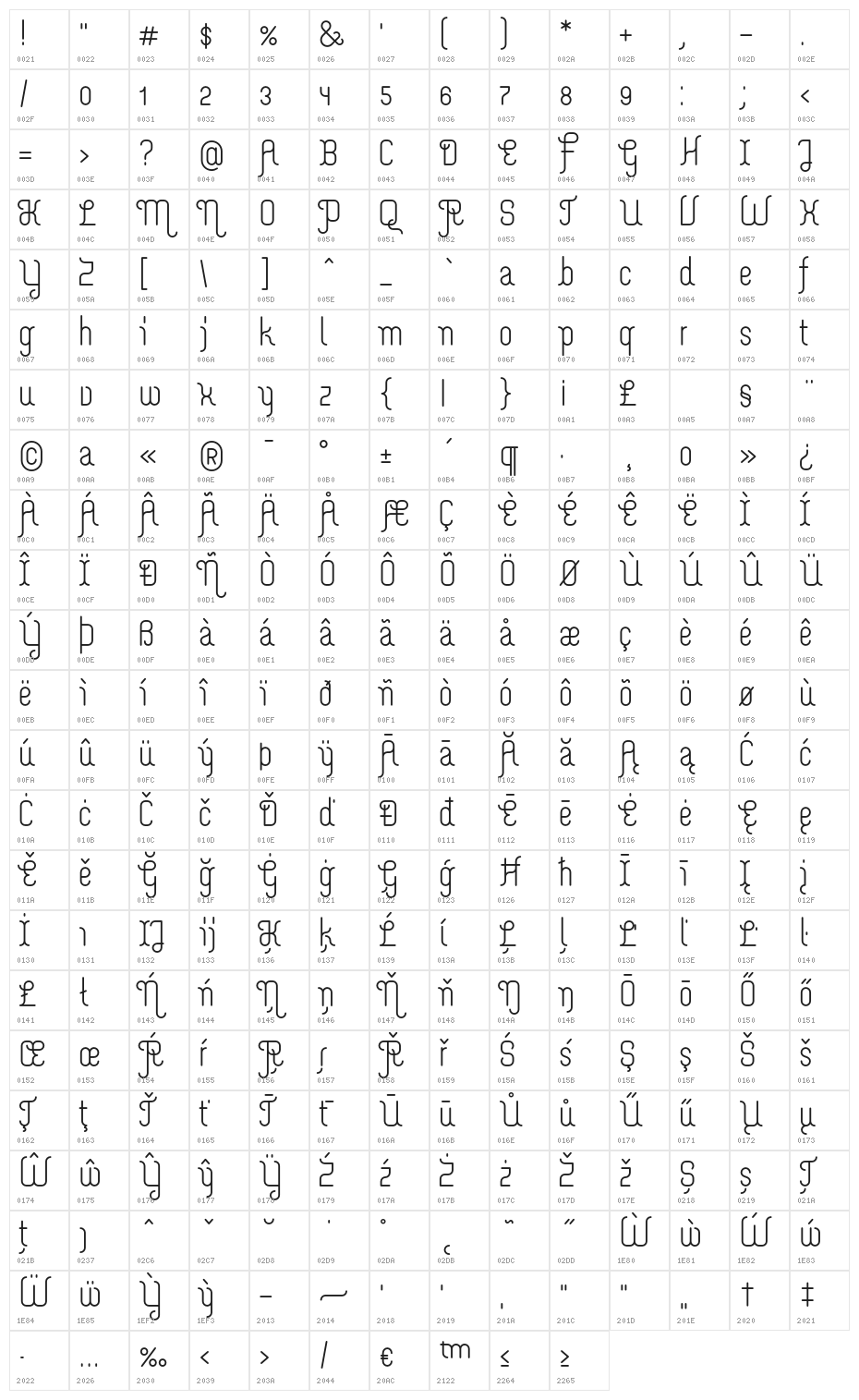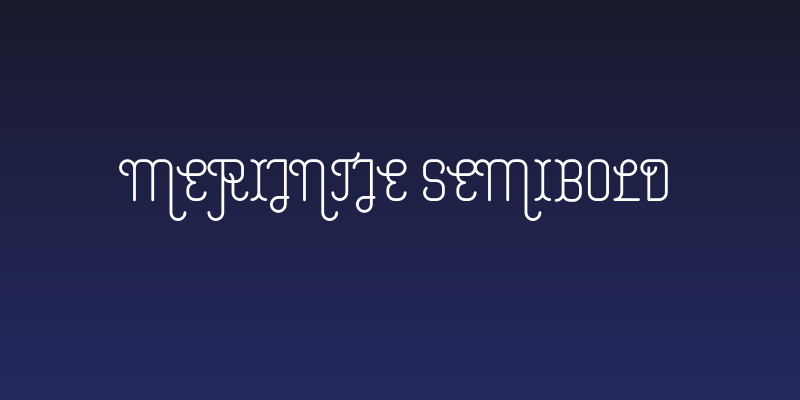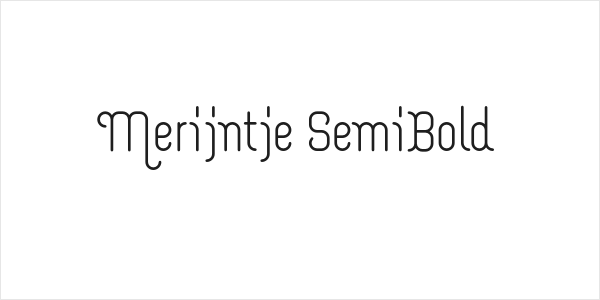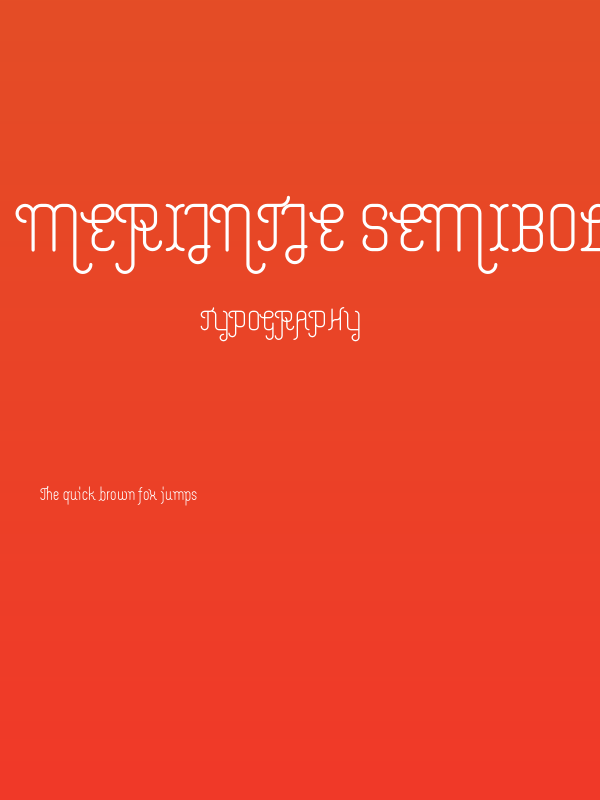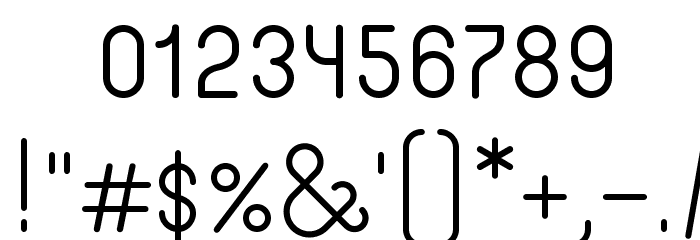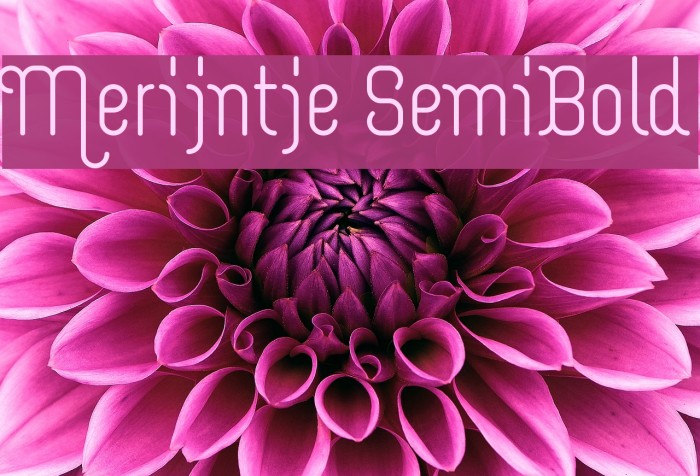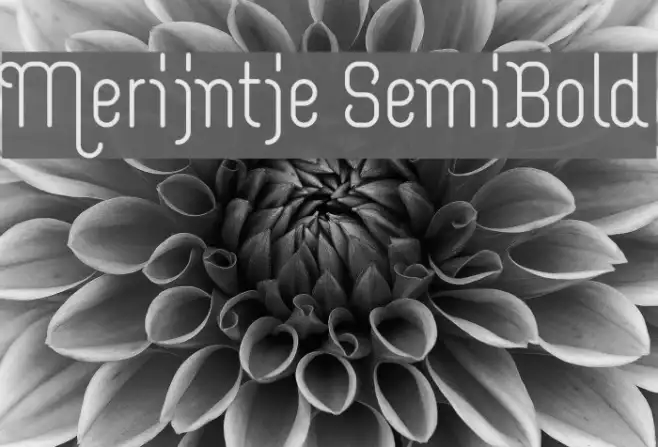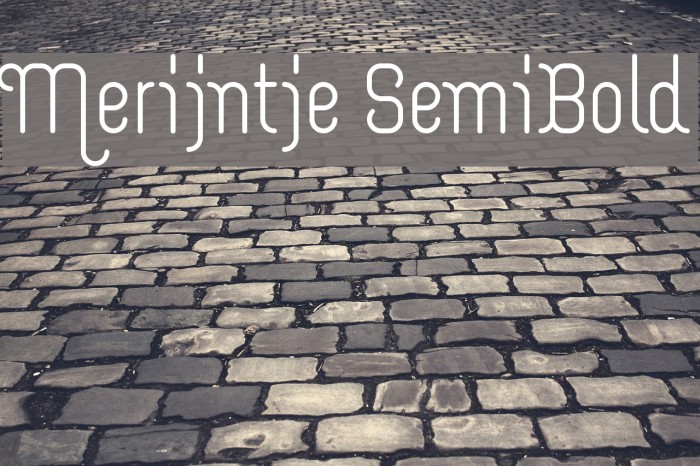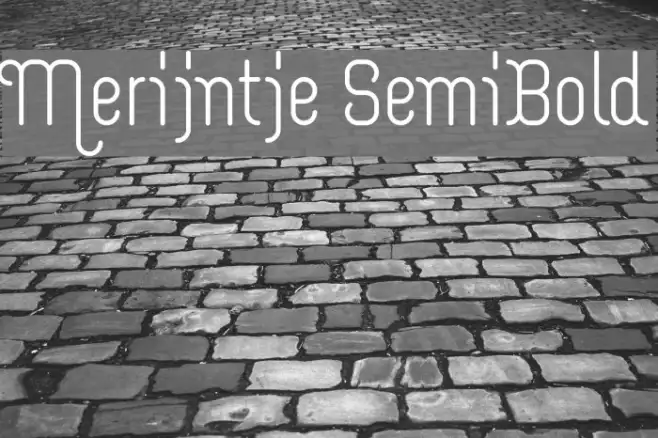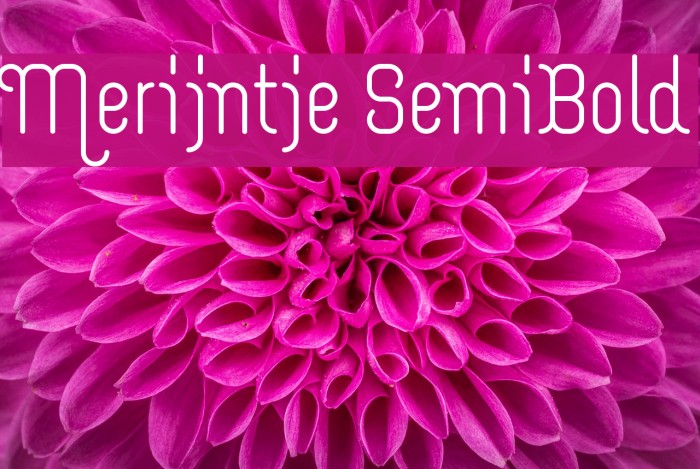
Merijntje SemiBold Font
Merijntje SemiBold Description
This font exhibits a unique blend of modern and decorative styles, characterized by its semi-bold weight and distinctive looped terminals. The uppercase letters feature a playful yet structured form, while the lowercase letters maintain a consistent and harmonious flow. The numerals are clear and legible, with a slight geometric influence. Special characters are thoughtfully designed to complement the overall aesthetic, making it versatile for various applications. The font's design is both eye-catching and functional, suitable for creative projects that require a touch of elegance and modernity.
| Proposed Projects | Ideal for branding, packaging, posters, and editorial design where a modern and decorative touch is desired. |